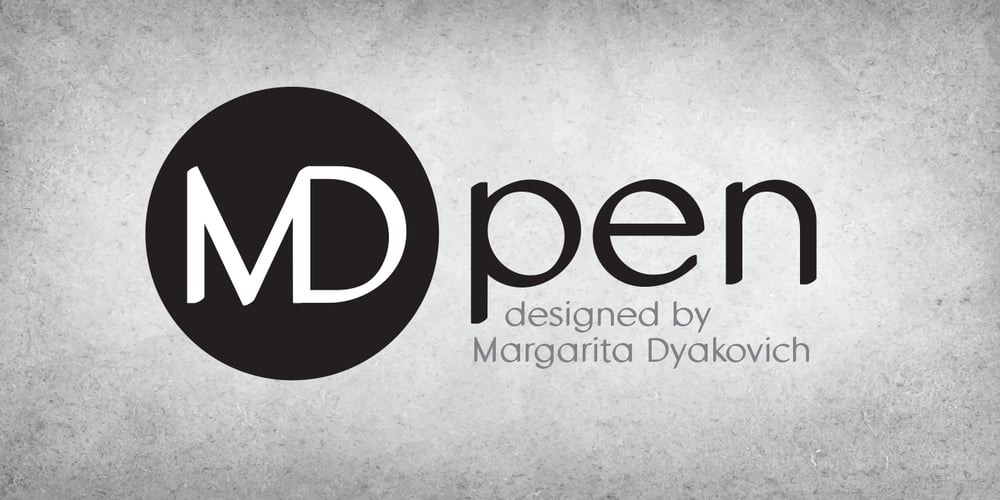
MD Pen Font Family was designed by Margarita Dyakovich and published by Margarita Dyakovich. MD Pen contains 6 styles and family package options. MD pen is a unique handwritten sans serif font family ( based on MD Grotesque) with a feel of elegance and with high readability. It’s versatile and can be used for a big variety of design projects. Perfect for any simple text. Each style includes Latin and Cyrillic character set.